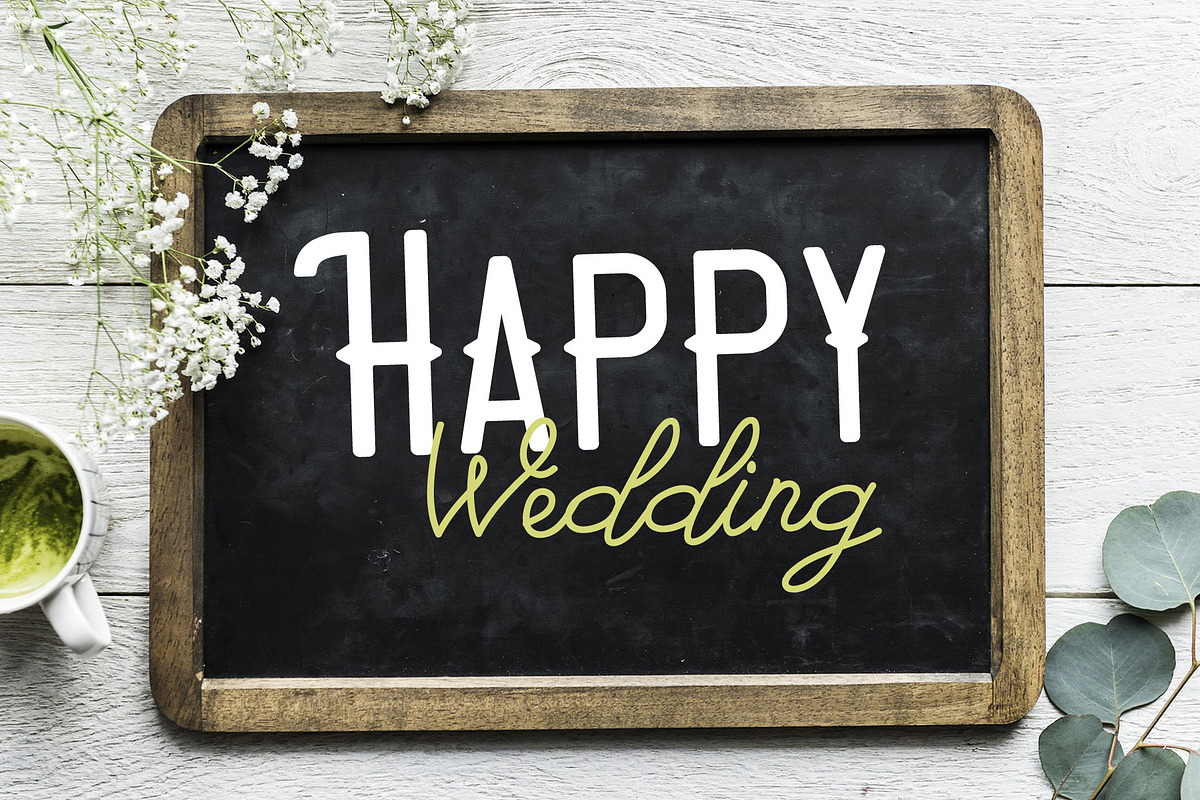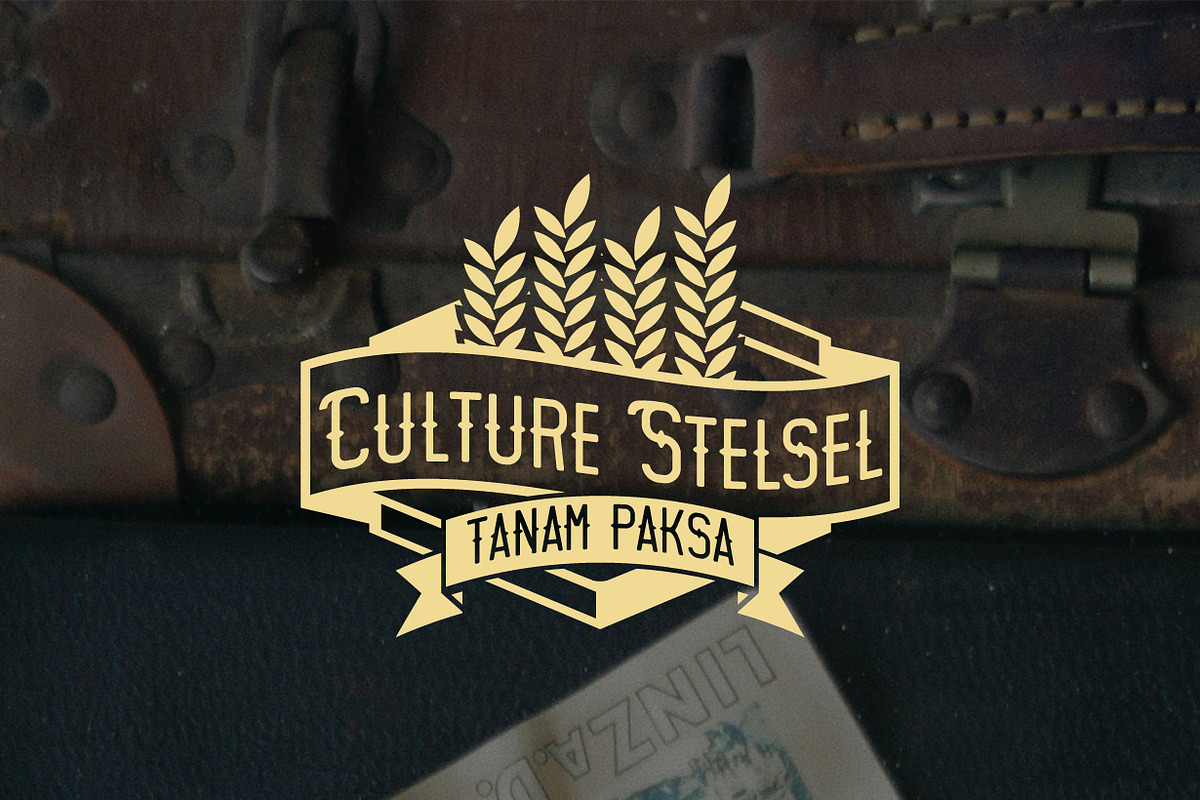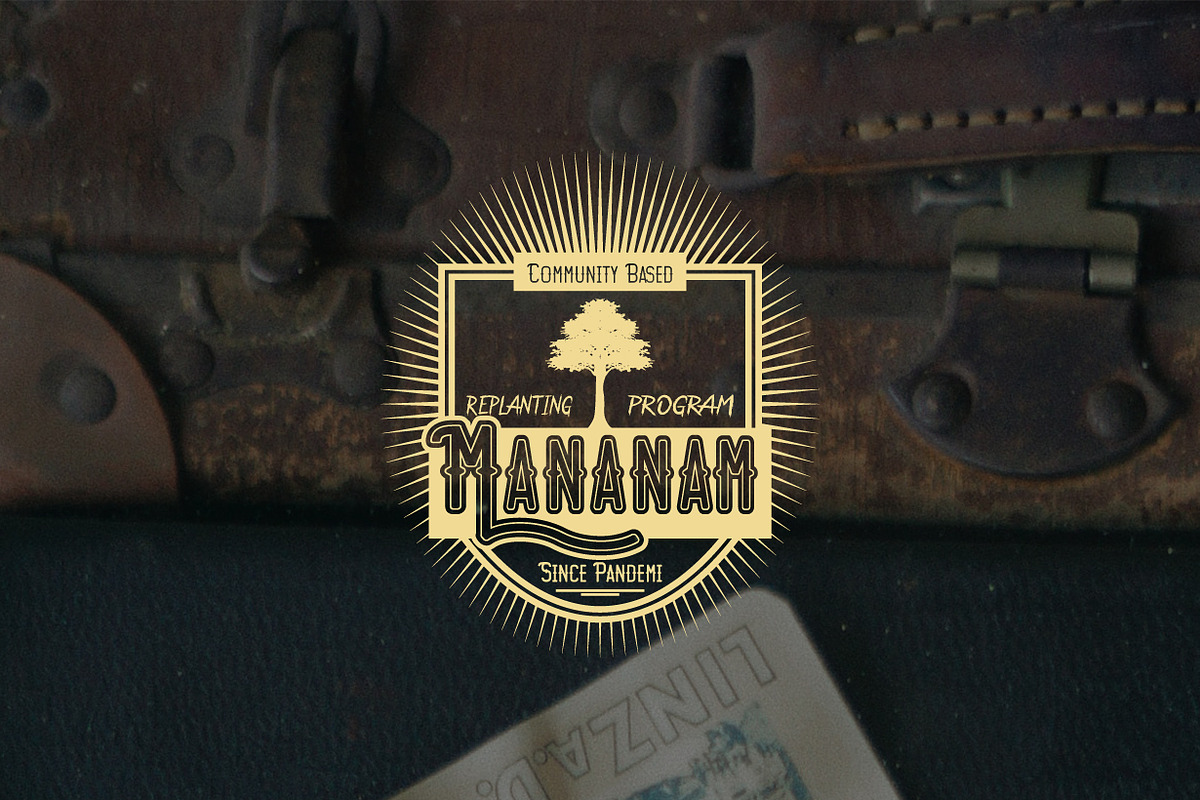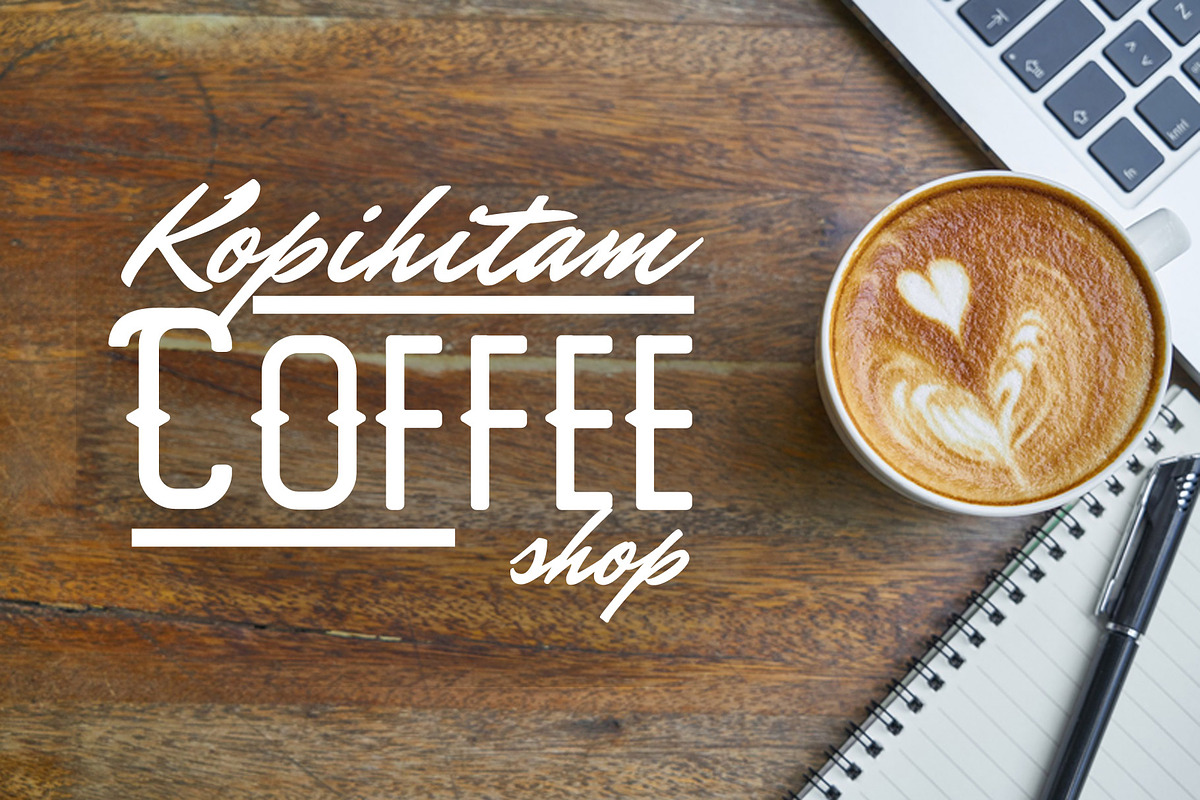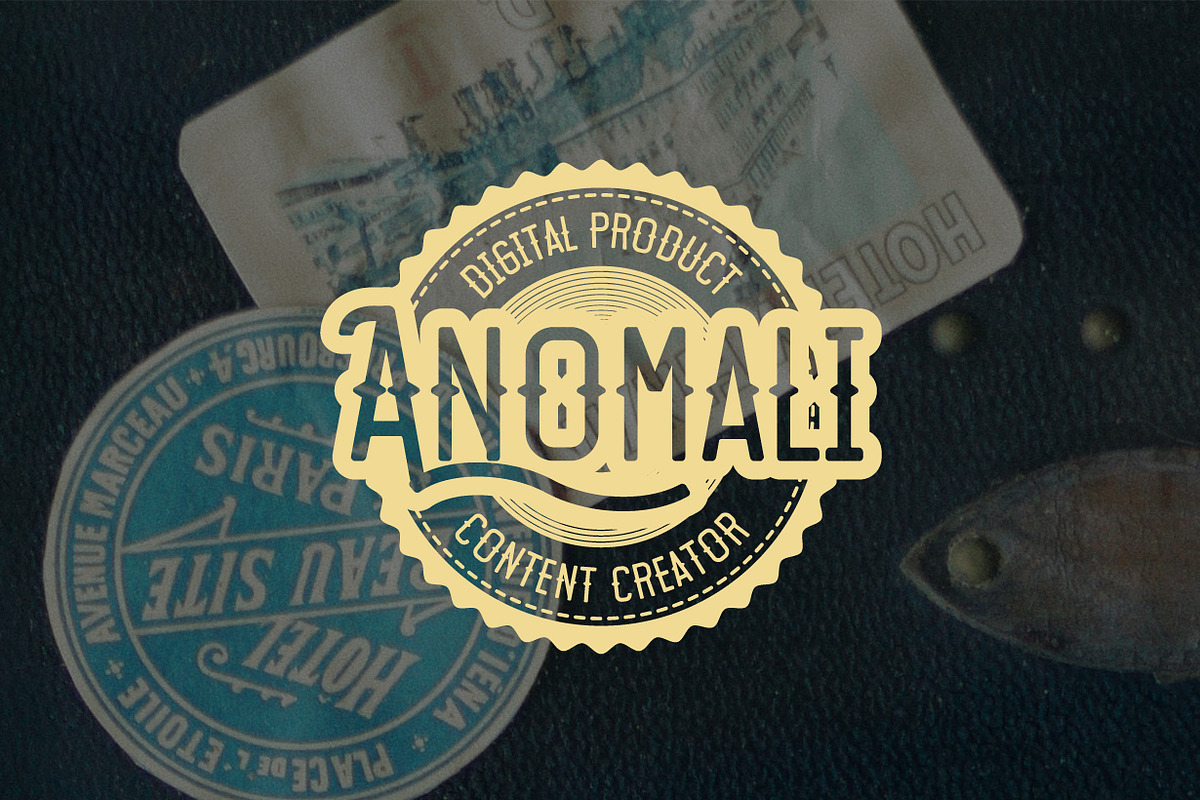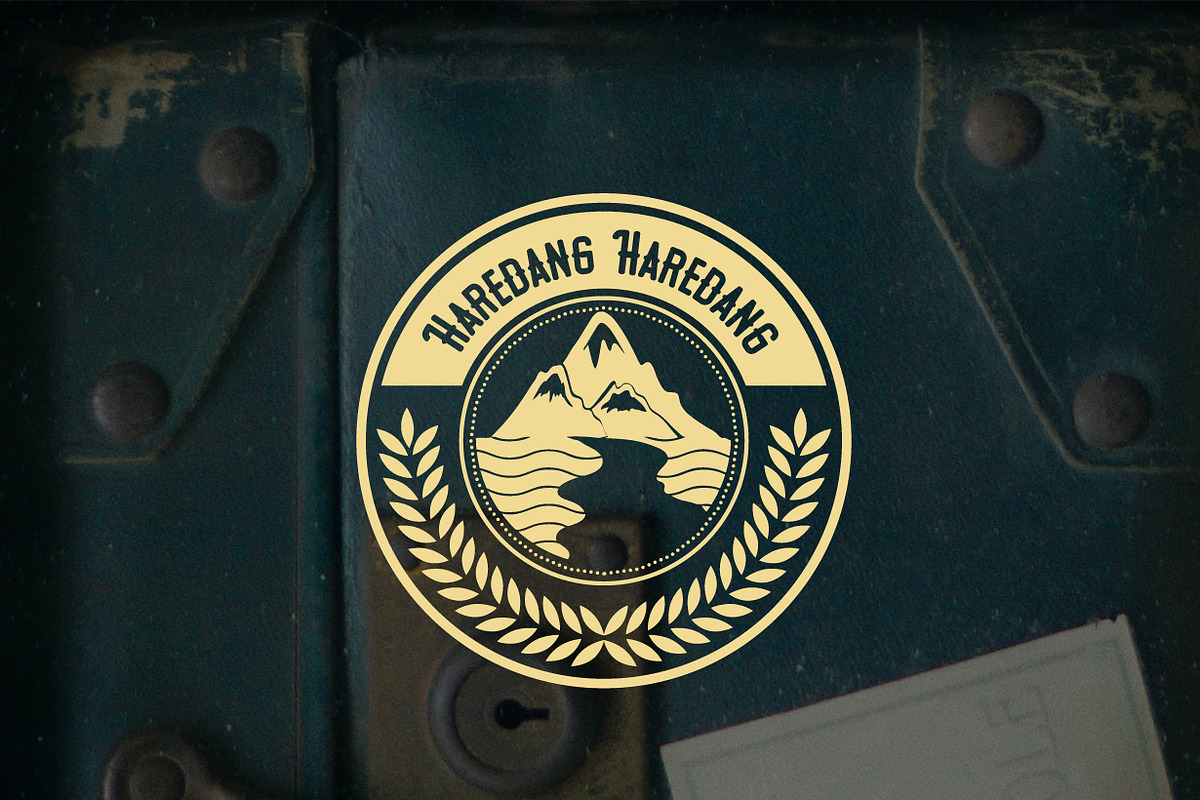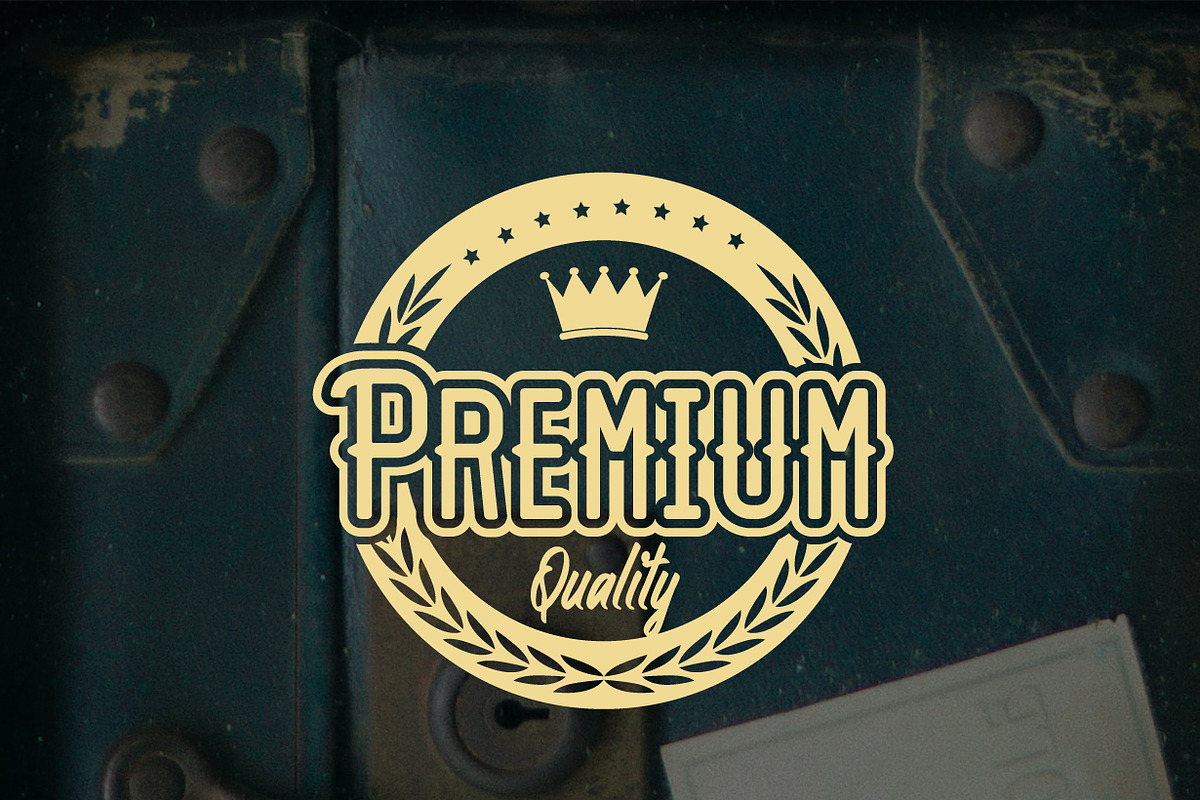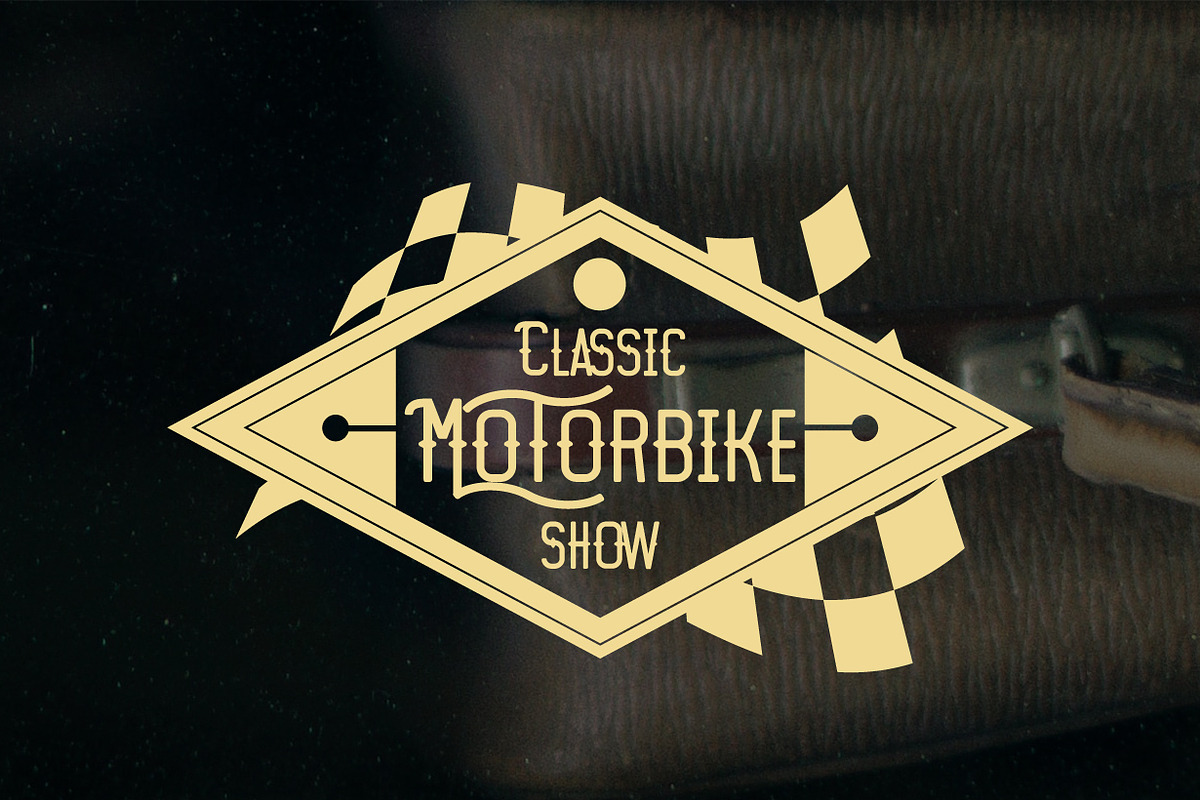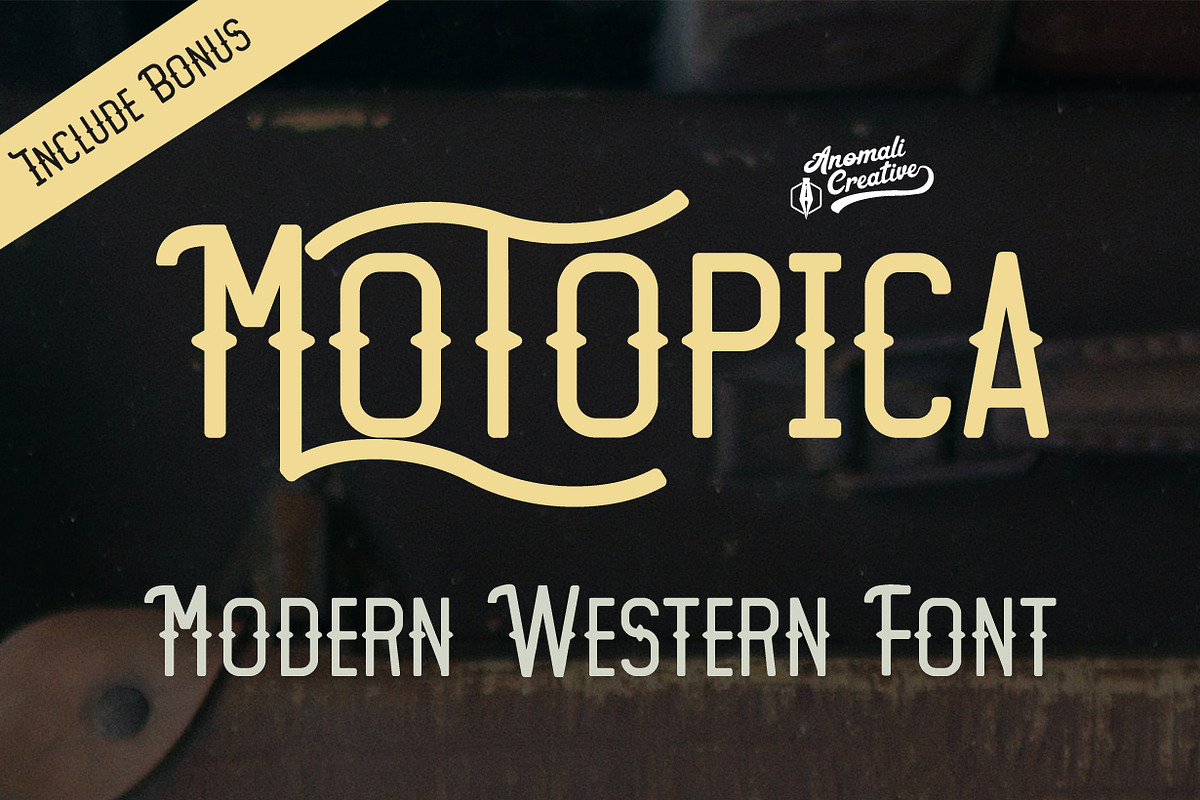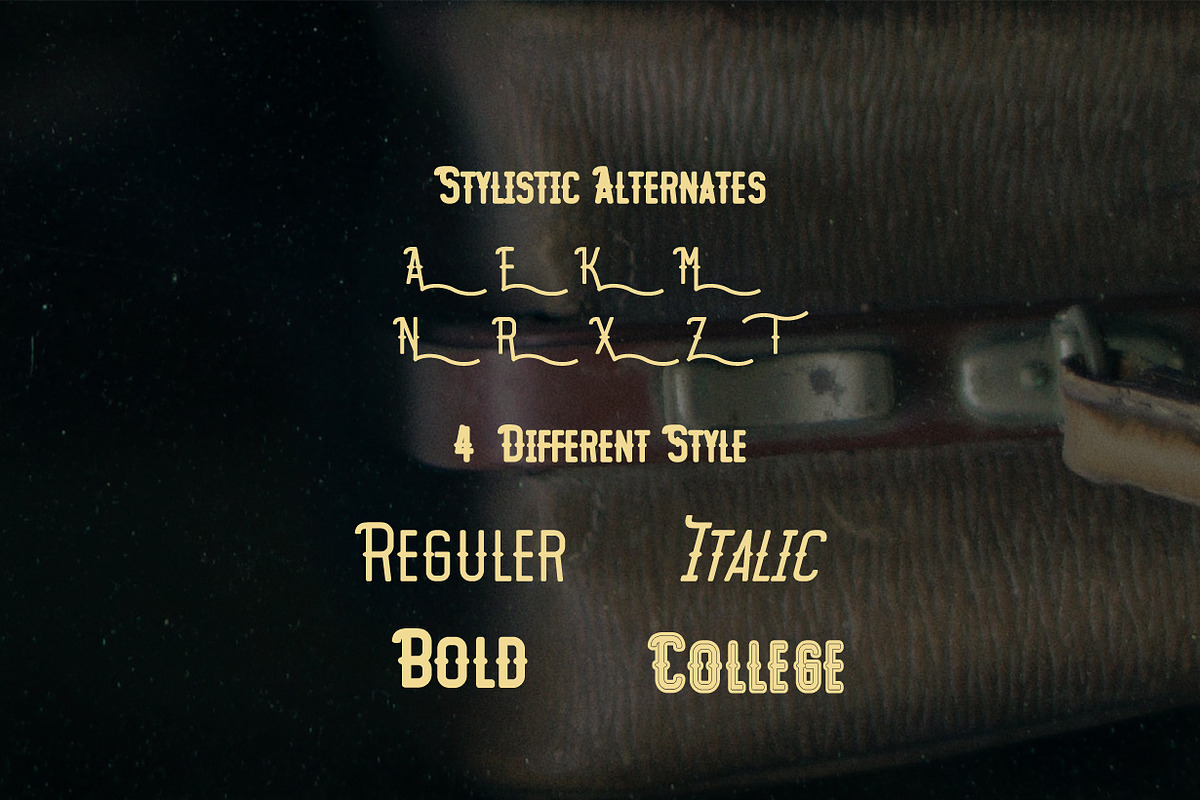
Motopica - Modern Vintage Retro Font
Motopica was born when I watched a show, namely "the pickers". At that time I realized that there were still many communities or people who really loved Western culture (Cowboy), Vintage Style in the 40s - 60s era and Classic Motorbike style (Caferacer).
So I intend to combine these three concepts into a single font, and Motopica was born, which brings the spirit of the three styles, namely Western Cowboy, Vintage, Beer and motorbike.
Motopica can be used as a Vintage Poster, Vintage Signage, Vintage badge and such. I even included